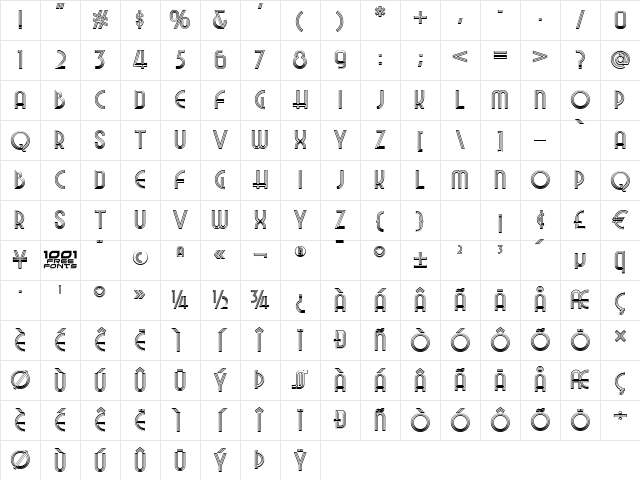
Night At The Opera NF Regular
Foundry: Nick's Fonts
Designer: Nick Curtis
Design Context for Night At The Opera NF
Night At The Opera NF is a composed and adaptable typeface that performs quietly and consistently across a wide range of design contexts.